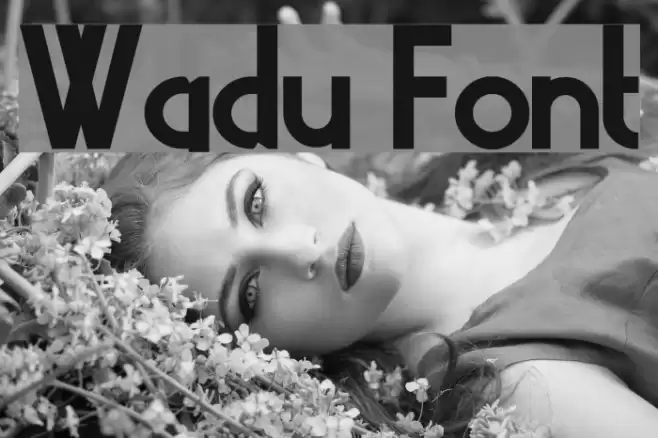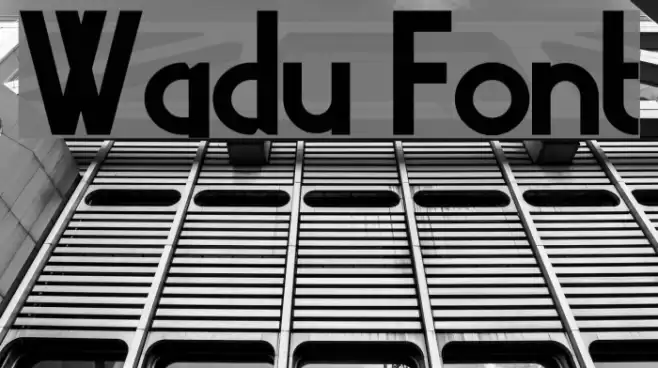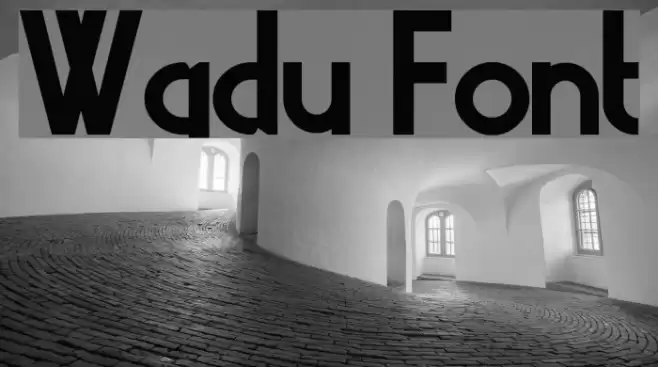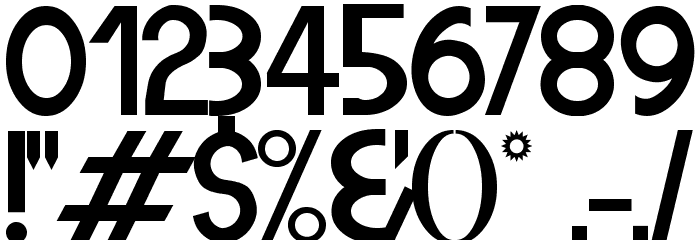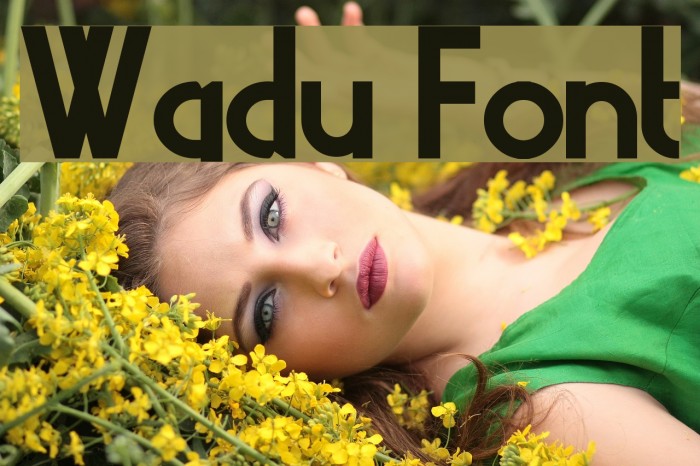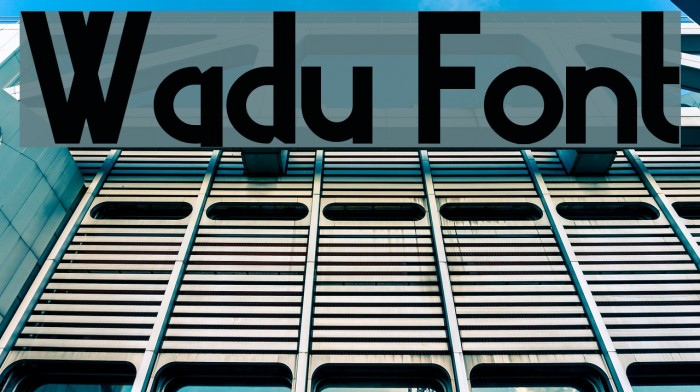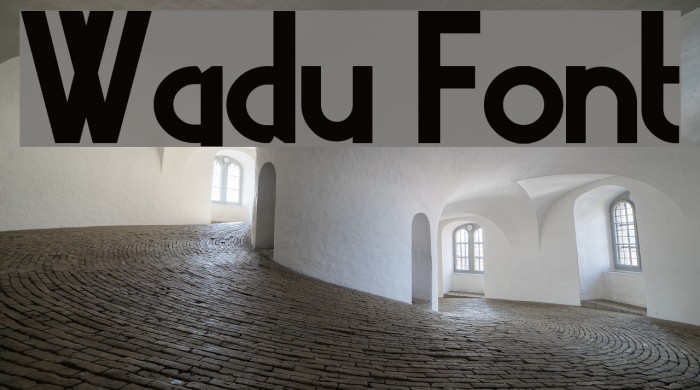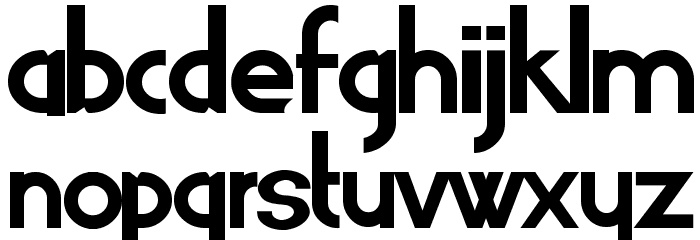
Wadu Font
Wadu Description
This font features a bold and modern sans-serif style with clean lines and a geometric structure. The uppercase letters are uniform in height, creating a strong and impactful appearance. The lowercase letters maintain a consistent roundness, contributing to a harmonious and balanced look. The numerals are clear and distinct, ensuring readability. Special characters are well-integrated, maintaining the overall aesthetic. The font's design is versatile, suitable for various applications where a contemporary and assertive presence is desired.